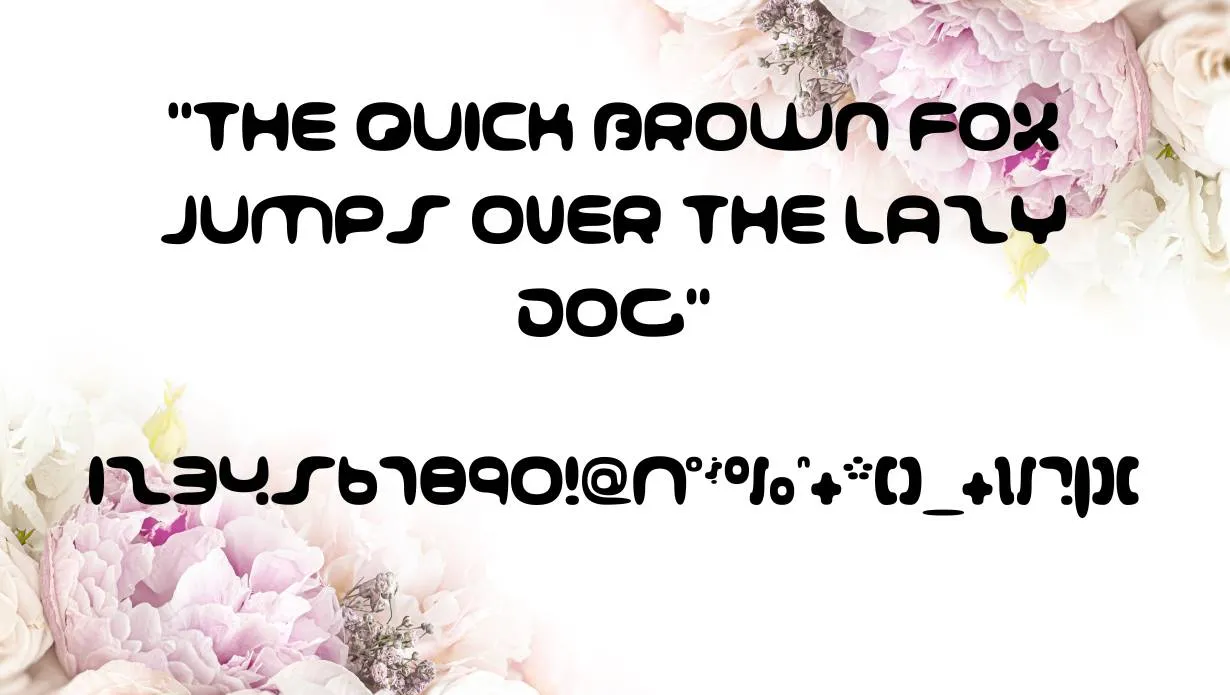
The 001 Interstellar Log Regular font feels spacey and out of this world. It’s like a text from a sci-fi adventure. In Adobe Photoshop, this font can craft captivating space-themed graphics or futuristic designs.
With CSS, it can bring a cosmic feel to web elements. In Canva, it’s perfect for sci-fi book covers or futuristic event announcements..